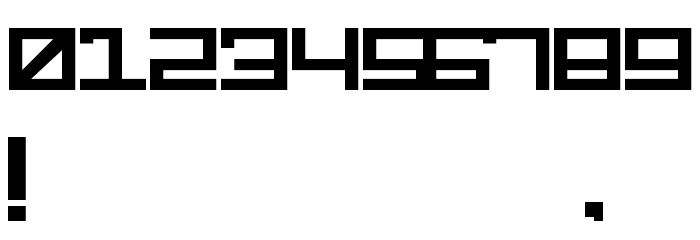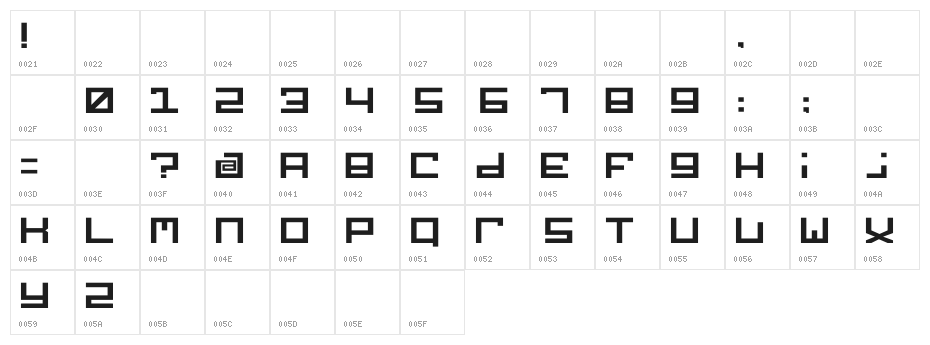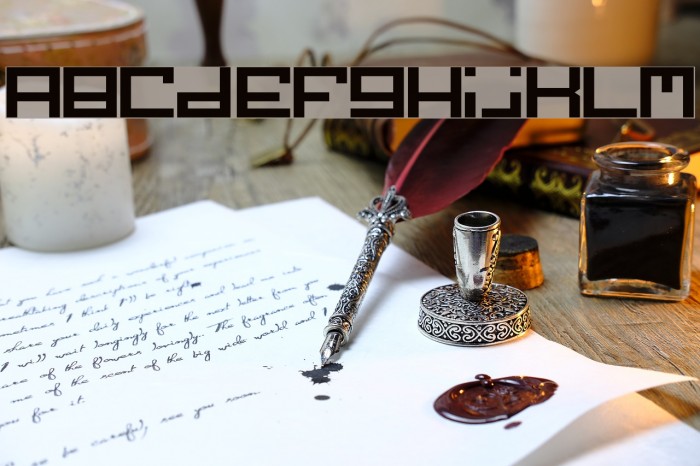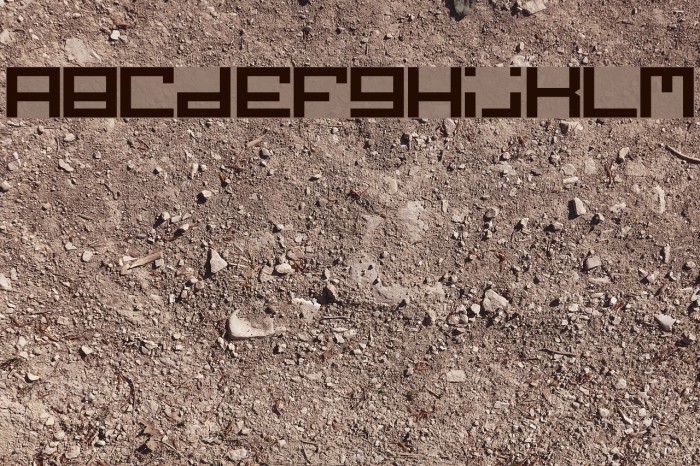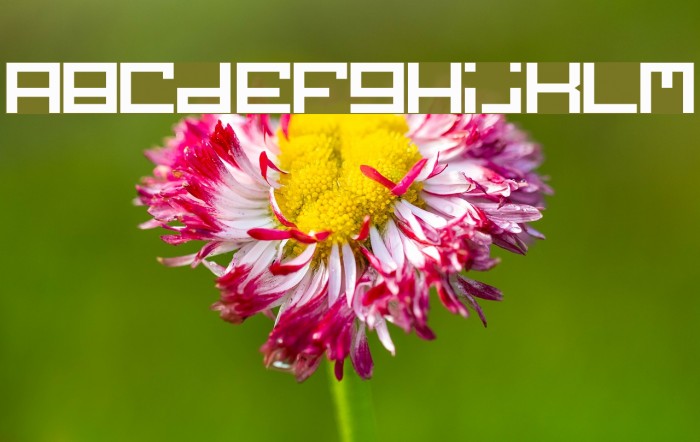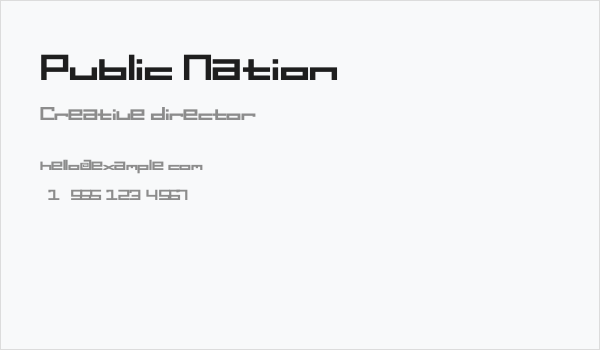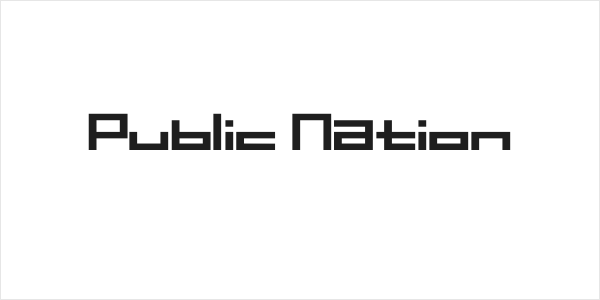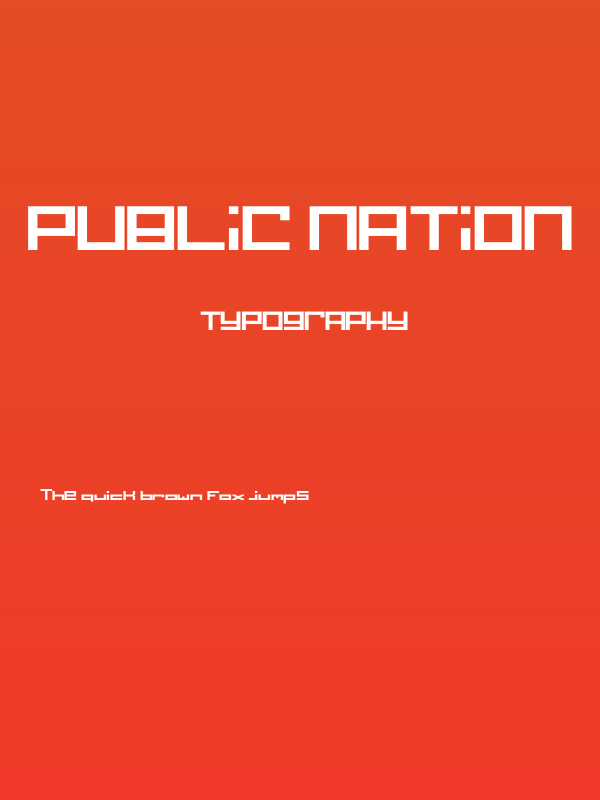
Public Nation Font
Public Nation Description
This font features a bold, geometric design with a distinctly modern and digital aesthetic. Each character is constructed with sharp, angular lines and a consistent stroke width, giving it a blocky and futuristic appearance. The uppercase and lowercase letters maintain a uniform height, contributing to a cohesive and structured look. The numerals and special characters follow the same design principles, ensuring visual harmony across all elements. This font's style is reminiscent of digital displays or retro video games, making it suitable for projects that require a tech-savvy or avant-garde vibe.